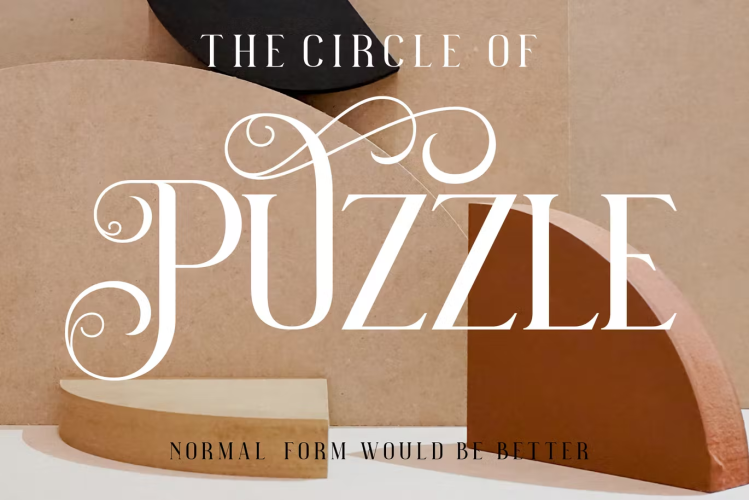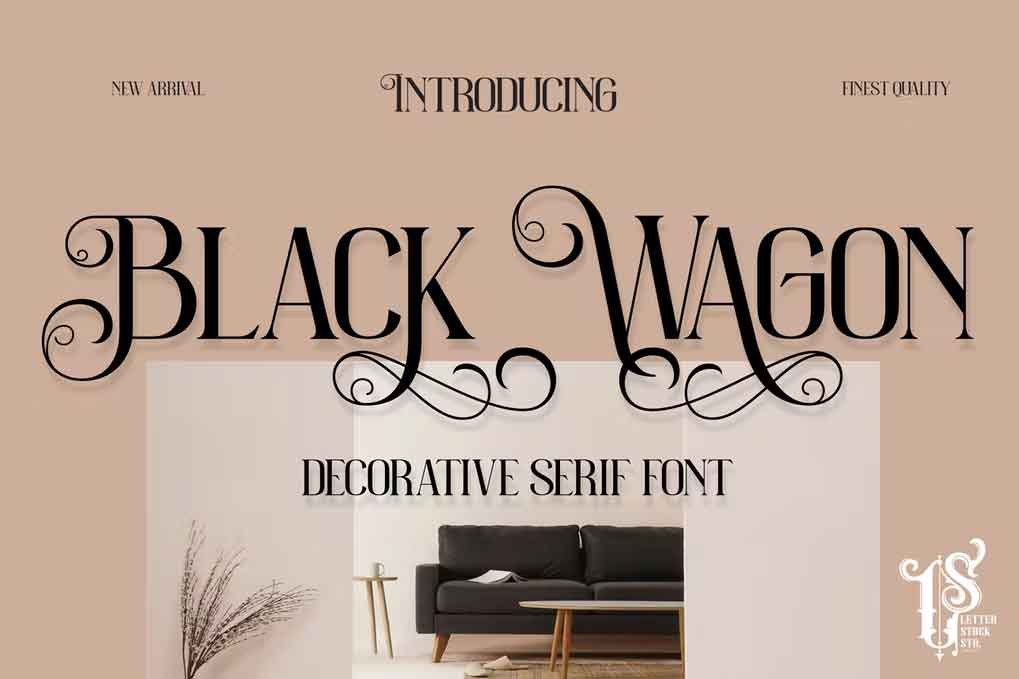
Black Wagon Font
This pair was inspired by poster design that i saw on street, It was crafted by hand specially to add natural handmade feeling in its brand identity than i make it clean with pentool.
If you need a decorative serif font style, Black Wagon font is great choice for you to make your design looks better and unique.
Black Wagon font has 204 character set included Black Wagon Font is very good looking in logo, movie poster design, youtube thumbnail, labels, product packaging, invitations, advertising and others.
Black Wagon Font gives long-form text a classic, trustworthy rhythm — ideal for magazine spreads, annual reports and book interiors.
Pair Black Wagon Font with generous letter-spacing for wordmarks in fashion, hospitality, wine and jewellery branding.
Use Black Wagon Font for slide titles in Keynote, PowerPoint or Google Slides to add authority without looking dated.